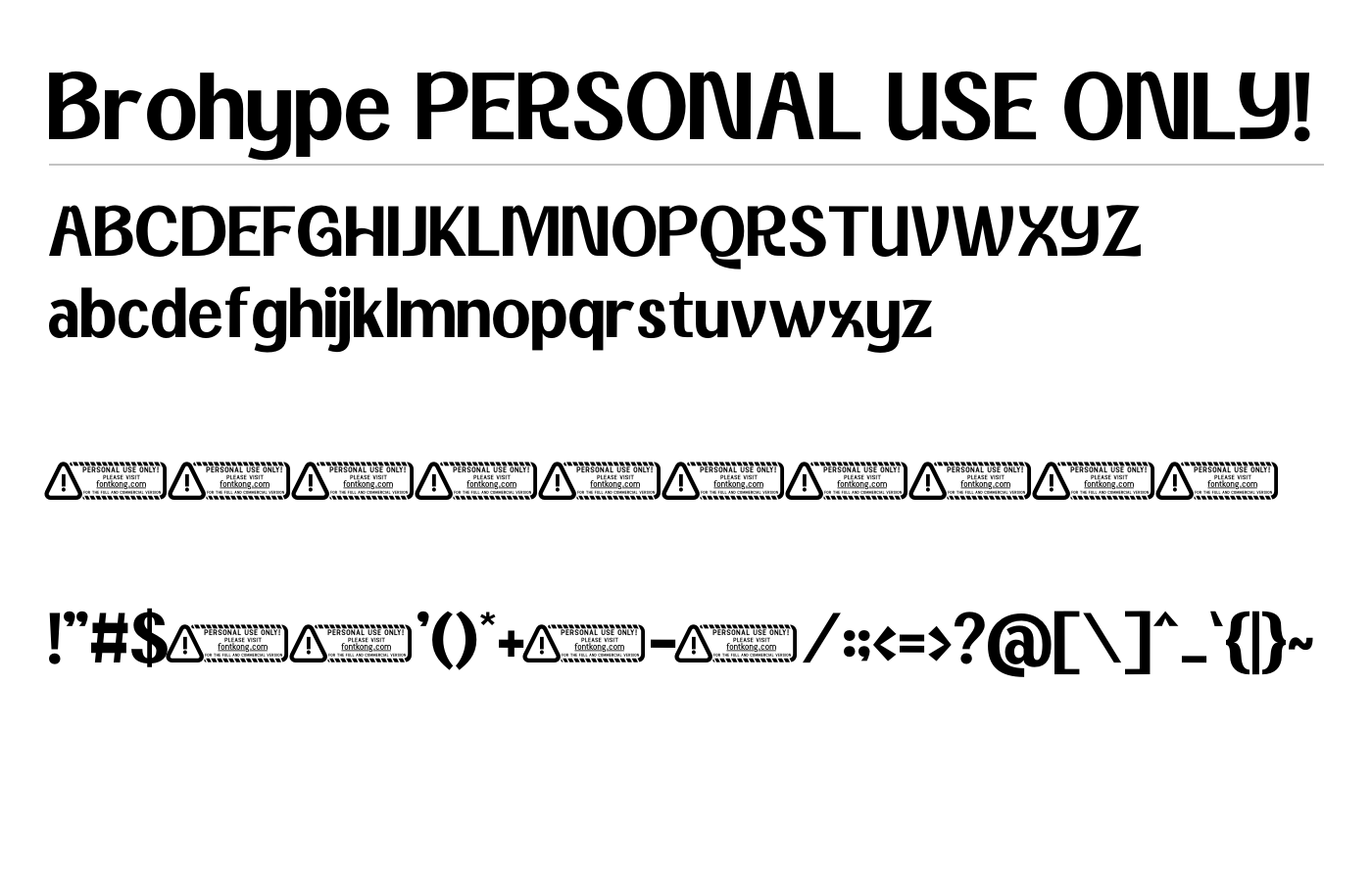
Brohype PERSONAL USE ONLY! is a quirky sans serif font characterized by its tall, narrow letterforms and playful irregular shapes that bring a friendly, informal vibe. Its medium weight and moderate contrast combine with unique letter details like the curved Q tail and distinctive lowercase g, making it ideal for eye-catching headlines, posters, and casual branding. This font suits projects seeking a modern yet whimsical feel, perfect for creative designs that want to stand out with a fun personality.
Brohype PERSONAL USE ONLY! Font
About Brohype PERSONAL USE ONLY! Font